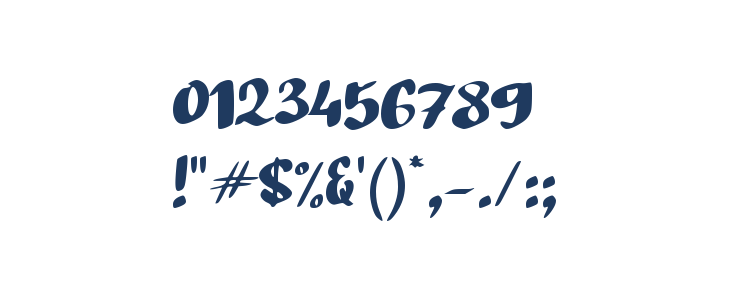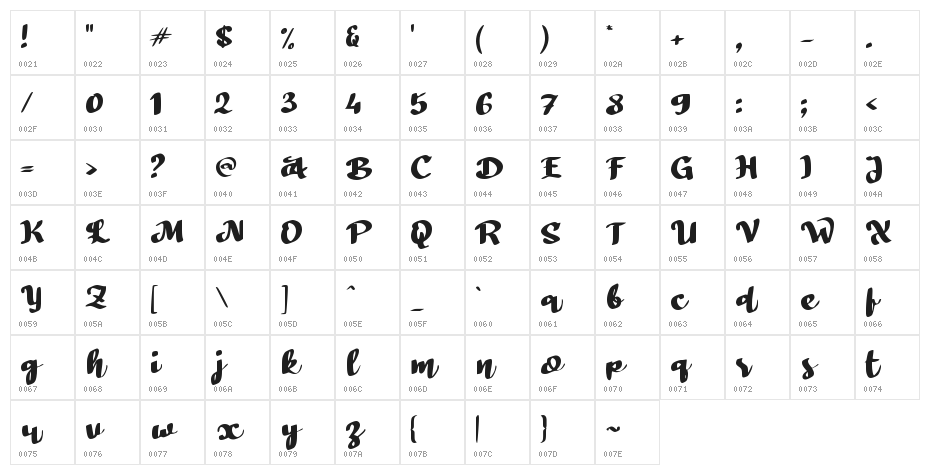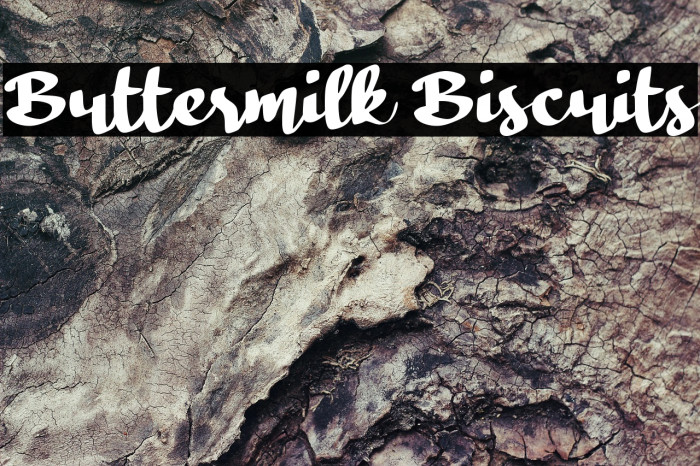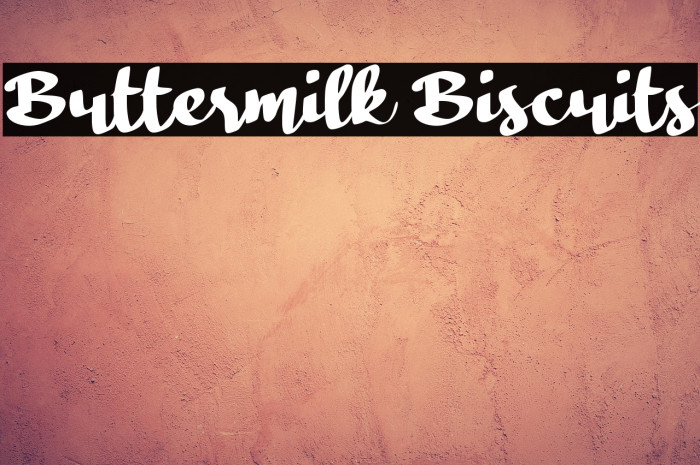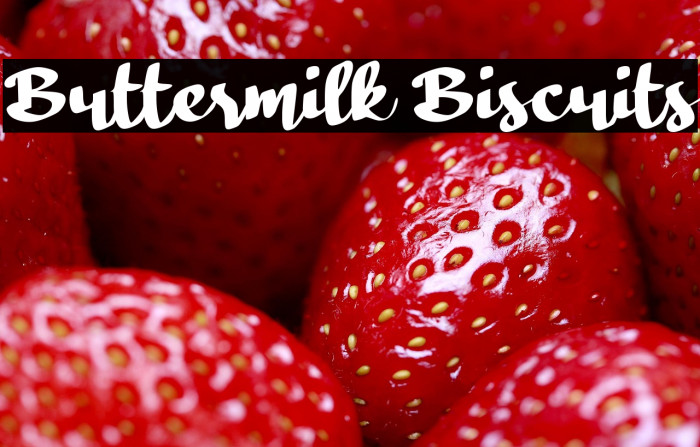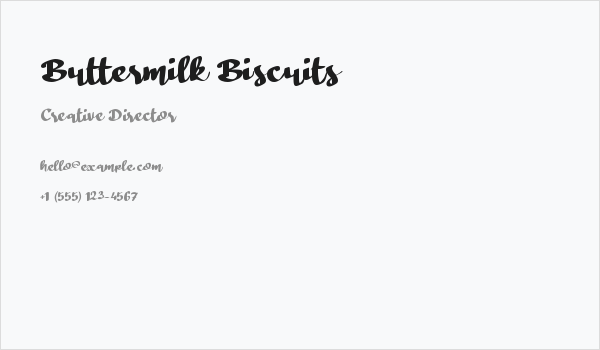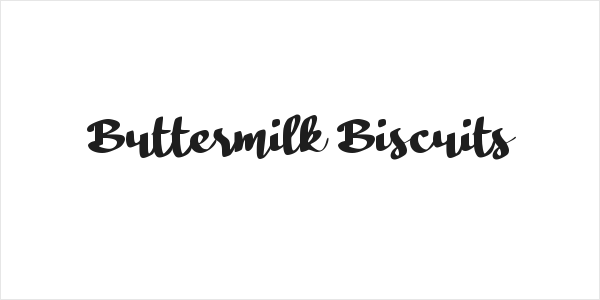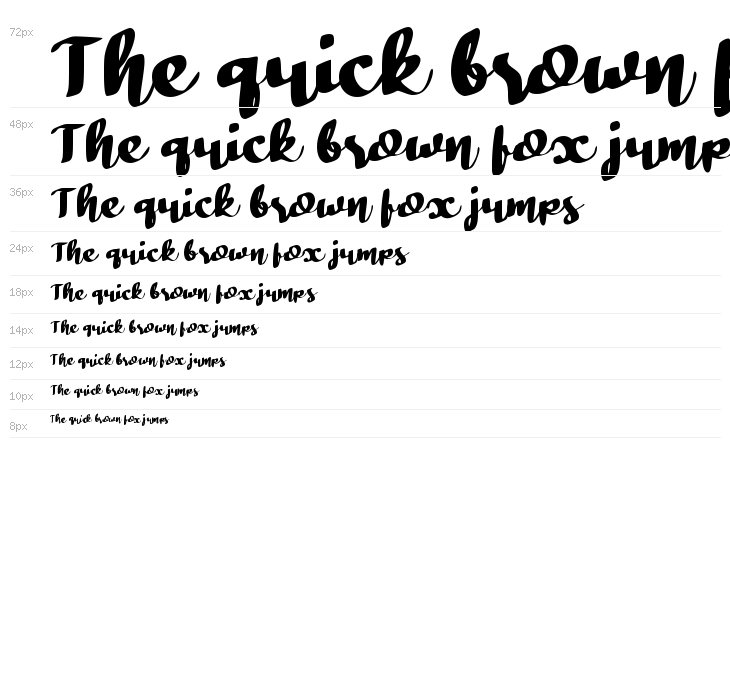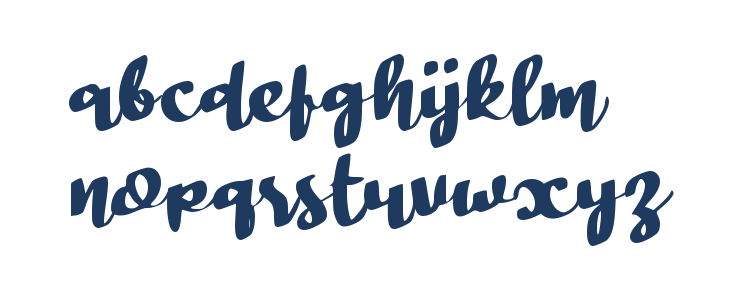
Buttermilk Biscuits Font
Buttermilk Biscuits Description
This font exudes a bold and playful character with its thick, flowing strokes and dynamic curves. The uppercase letters are robust and slightly slanted, giving a sense of movement and energy. The lowercase letters maintain a consistent style, with rounded forms and a slight inclination that adds to the font's lively appearance. Numbers are equally bold, ensuring readability while maintaining the font's overall aesthetic. Special characters are designed with the same attention to detail, featuring smooth curves and a cohesive style that complements the alphabetic characters. This font is perfect for projects that require a touch of whimsy and boldness.
| Proposed Projects | Ideal for branding, packaging, posters, and invitations where a lively and bold statement is needed. |